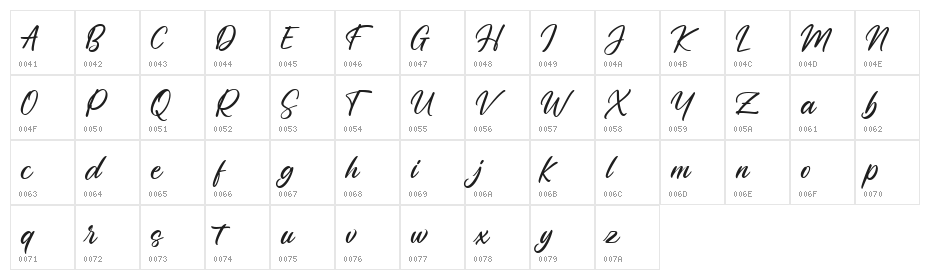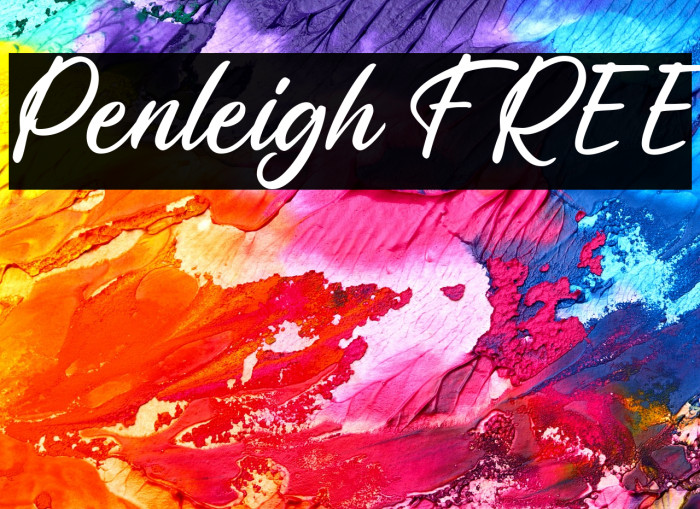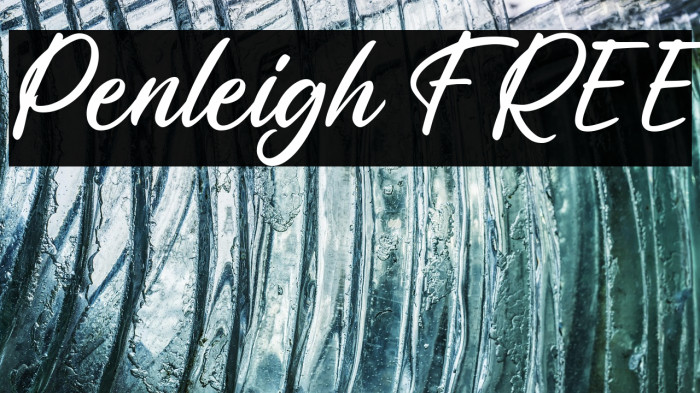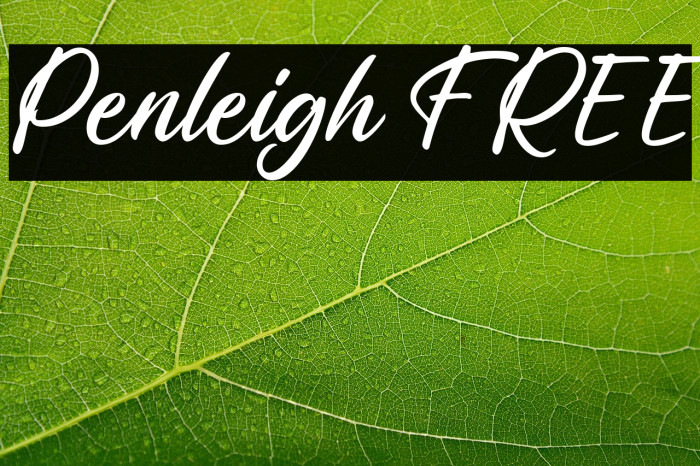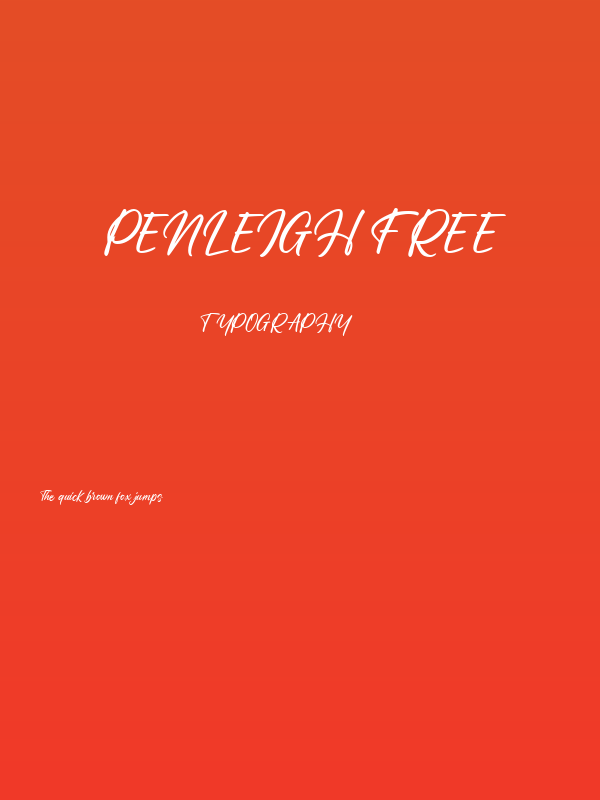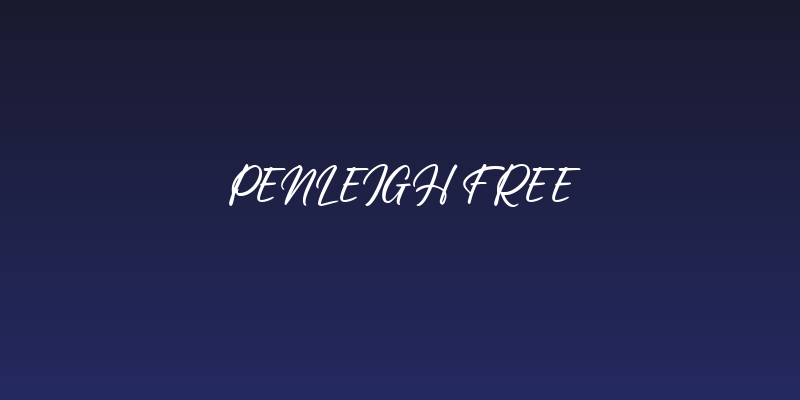
Penleigh FREE Font
Penleigh FREE Description
This font showcases a dynamic and elegant script style, characterized by fluid, cursive strokes that convey a sense of motion and grace. The uppercase letters are bold and slightly slanted, giving them a sophisticated flair, while the lowercase letters maintain a consistent flow with smooth connections between characters. The font includes diacritical marks, enhancing its versatility for various languages. Its overall appearance is both modern and classic, making it suitable for a wide range of applications. The characters are well-spaced, ensuring readability without compromising the artistic touch. This font is ideal for projects that require a personal and stylish touch, such as invitations, branding, and editorial design.